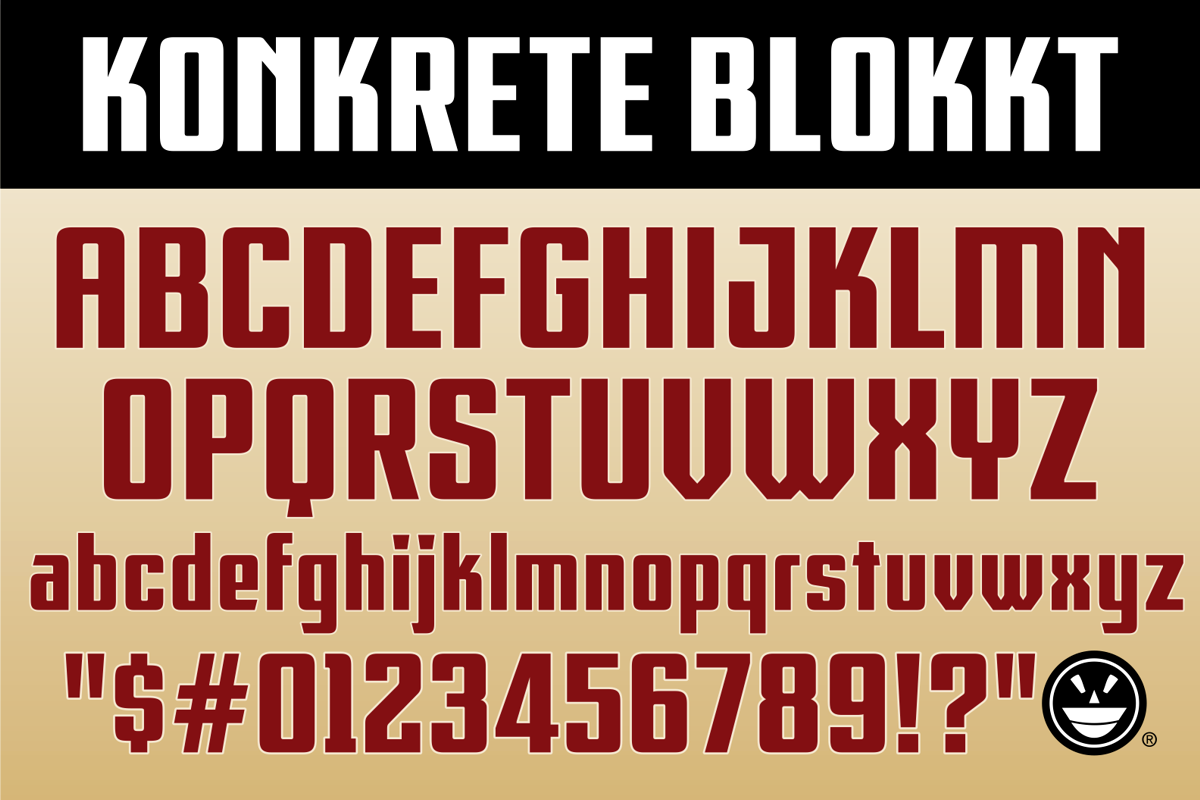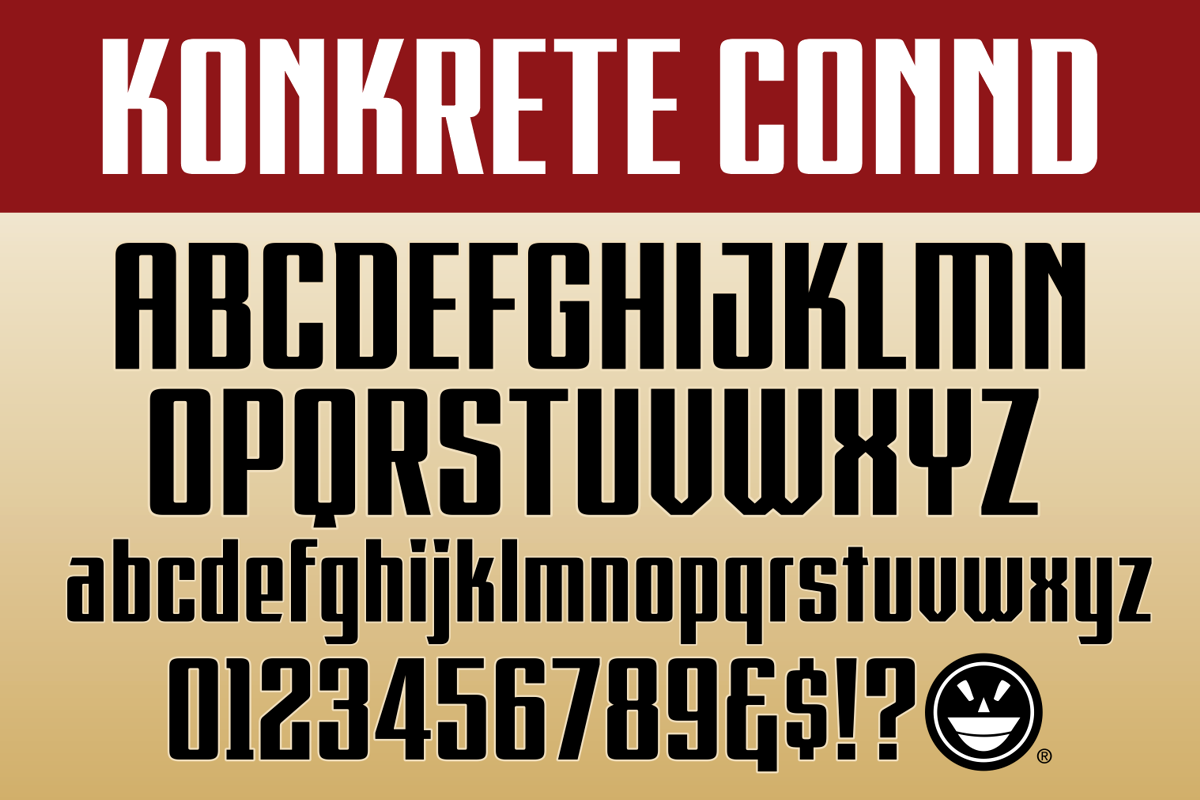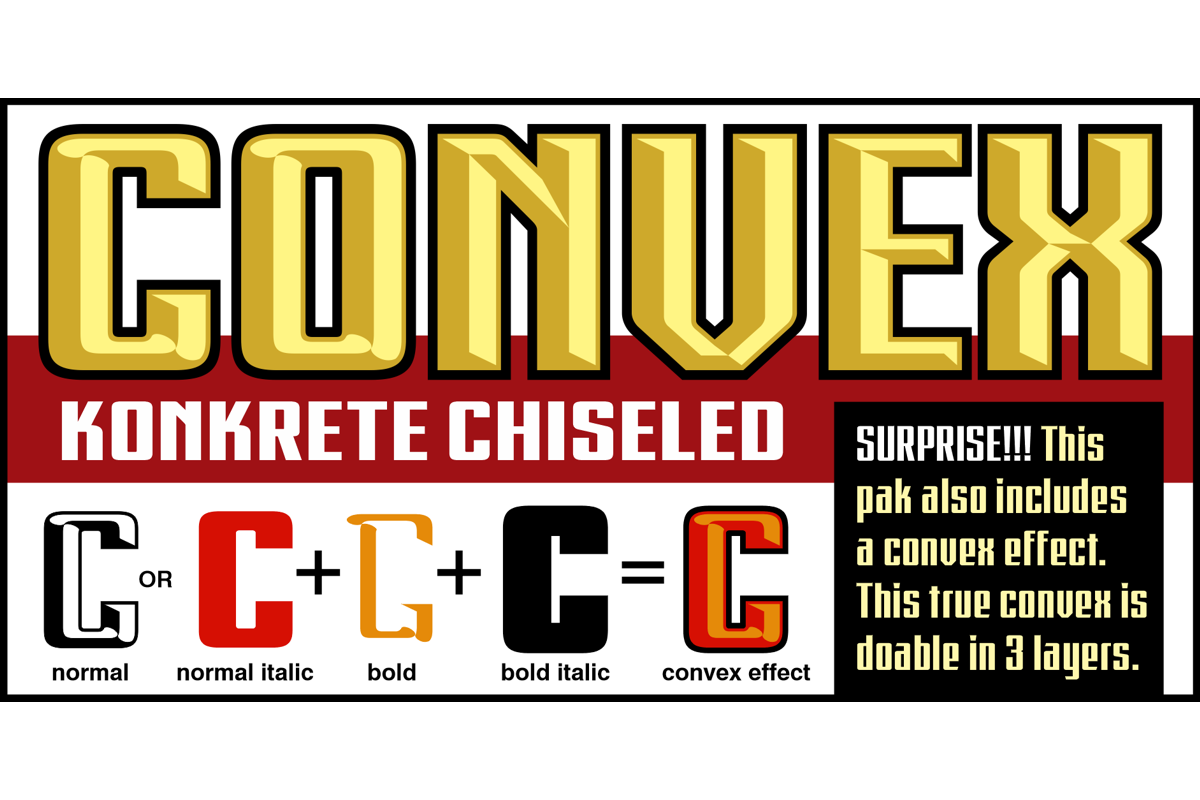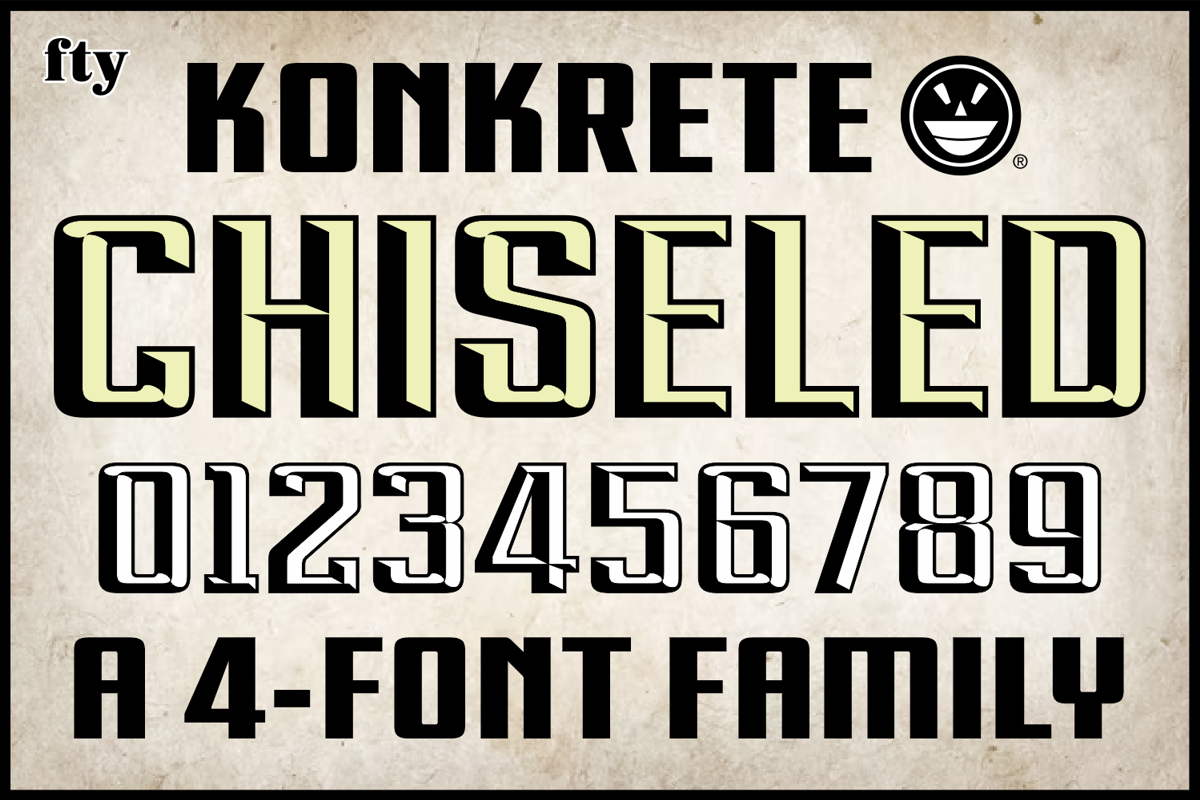
RACE1 KONKRETE CHISELED
The RACE1 KONKRETE FAMILY is a classic gothic narrow in three stances. Users can create true convex lettering by duplicating the font atop itself and selecting normal, bold, italic and bold italic from their design program’s style menu.